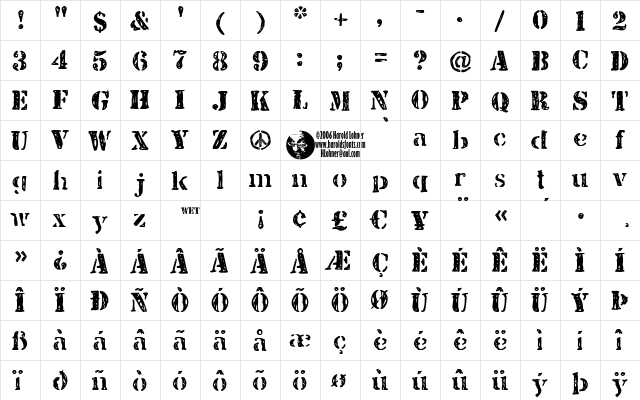
JJStencil Wet Regular
Design Context for JJStencil Wet Typeface
JJStencil Wet has the rough pragmatism of spray-painted stencil signage, adding a raw, street-level authenticity to designs.
A strong choice for packaging that needs edge, warehouse aesthetics, and rough-and-ready visual identities.
Pro Tip: Use JJStencil Wet at large sizes on packaging, posters, or apparel where the stencil cutaways read clearly. Avoid small sizes where those gaps become visual noise.